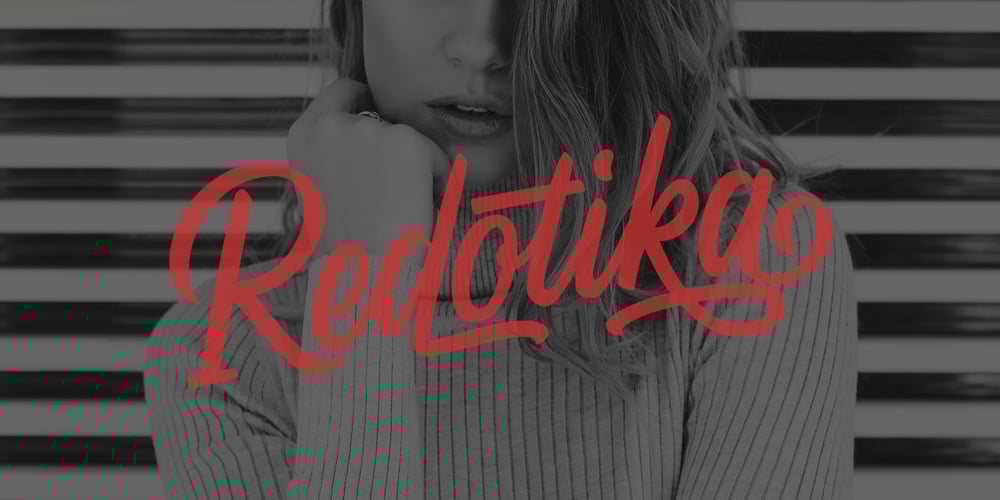
Redotika
Redotika font
Redotika Font Family was designed by Ali Hamidi and published by Ali Hamidi. Redotika contains 1 styles and family package options. Redotika is a versatile script font that has many alternatives for lowercase letters. This type of font is best used for logos, apparel designs, merchandise and whatever designs you need in the future.